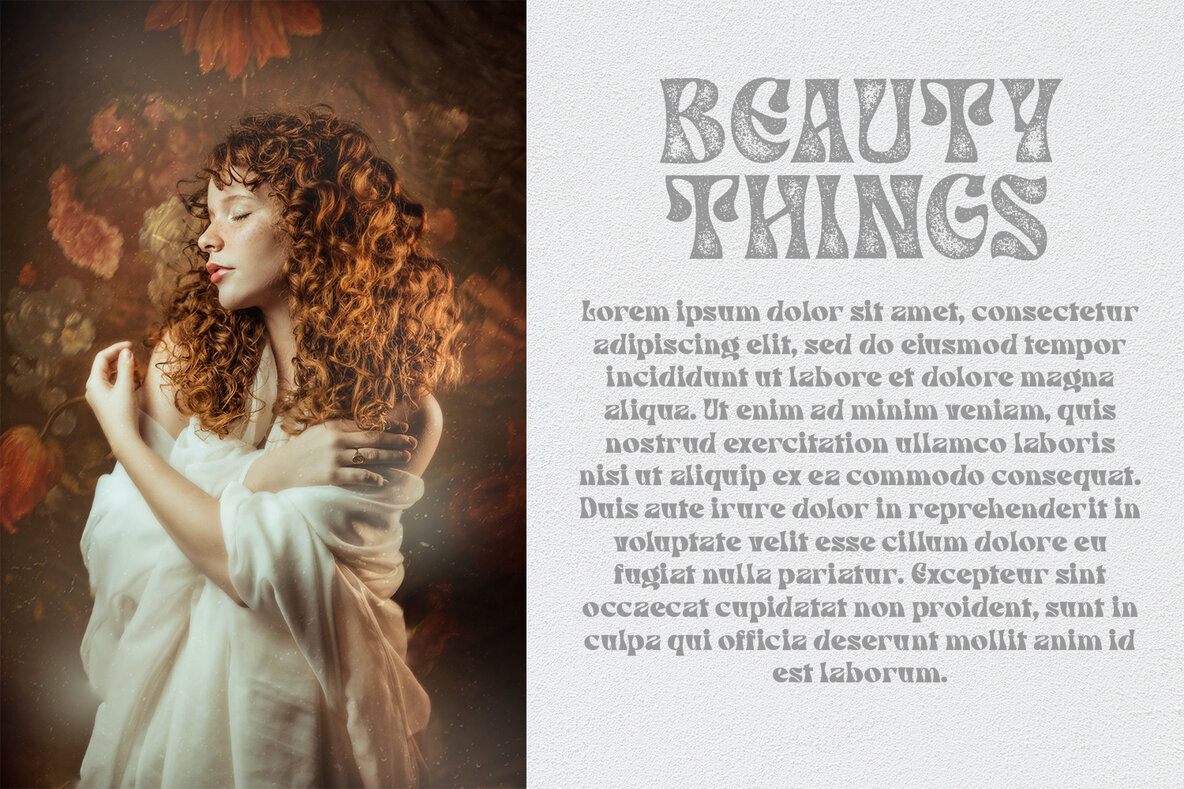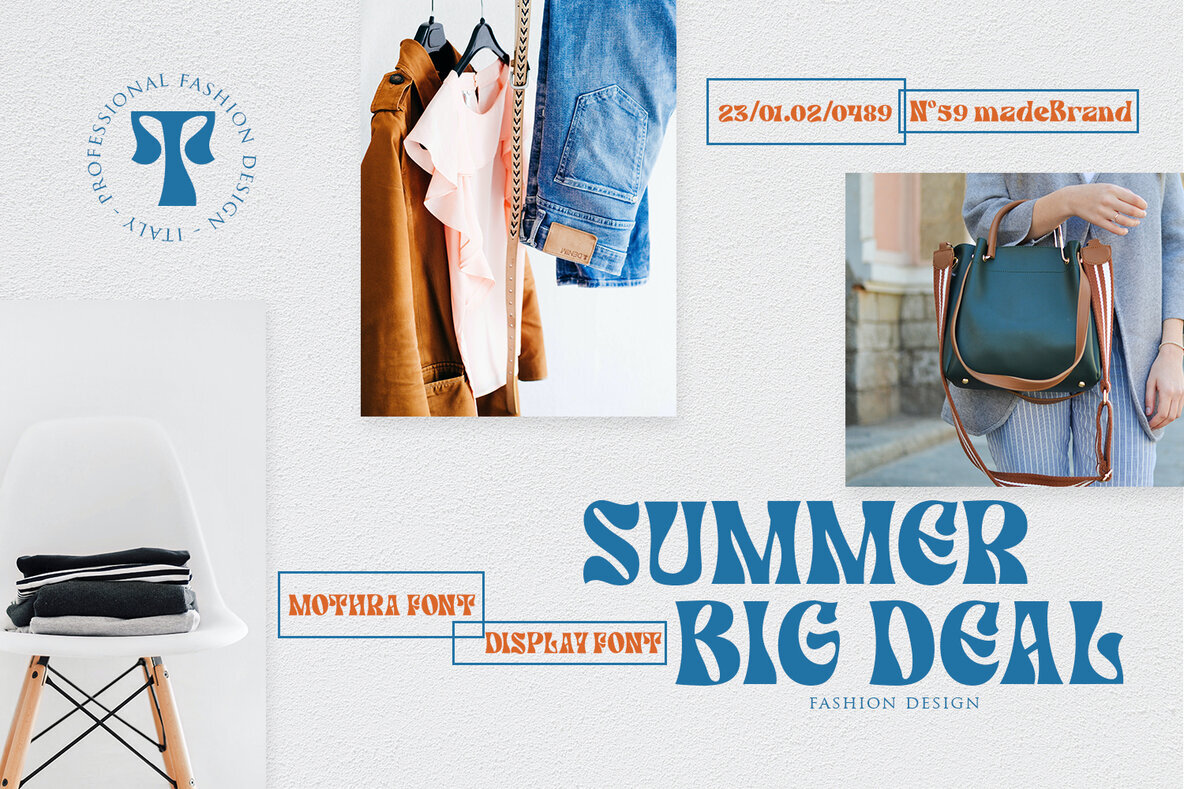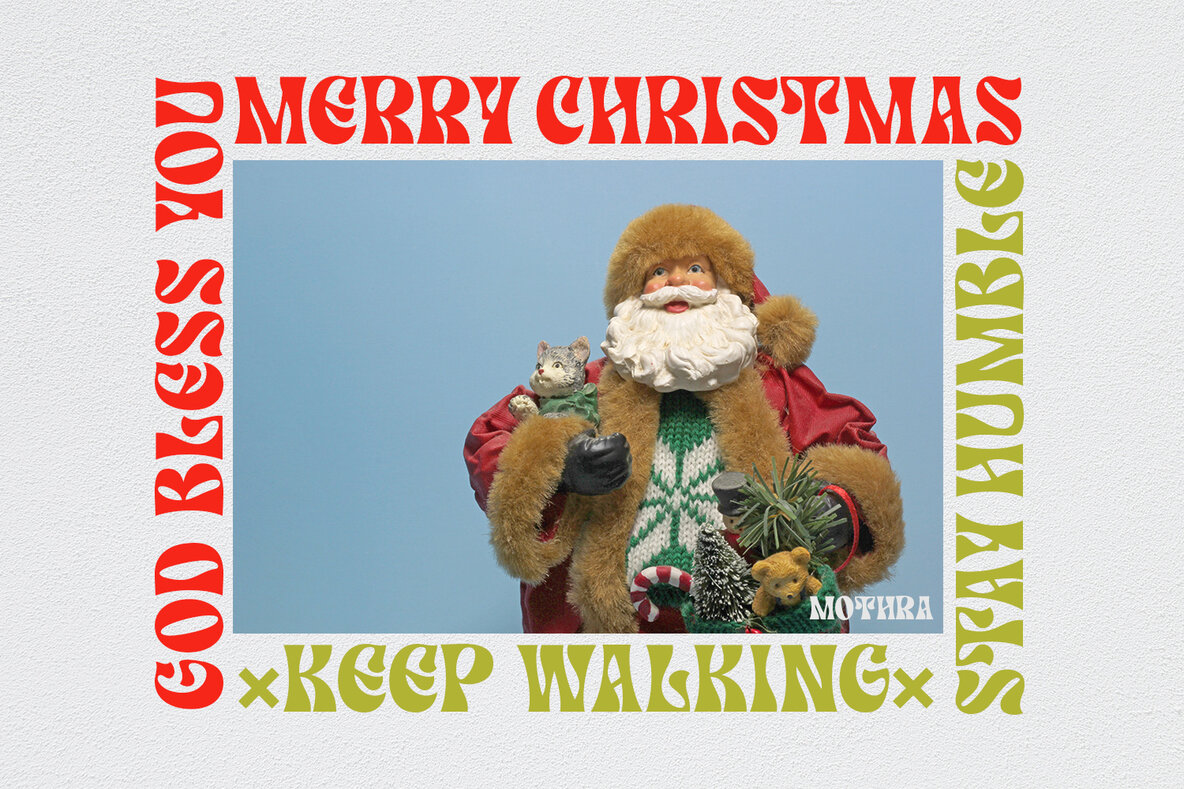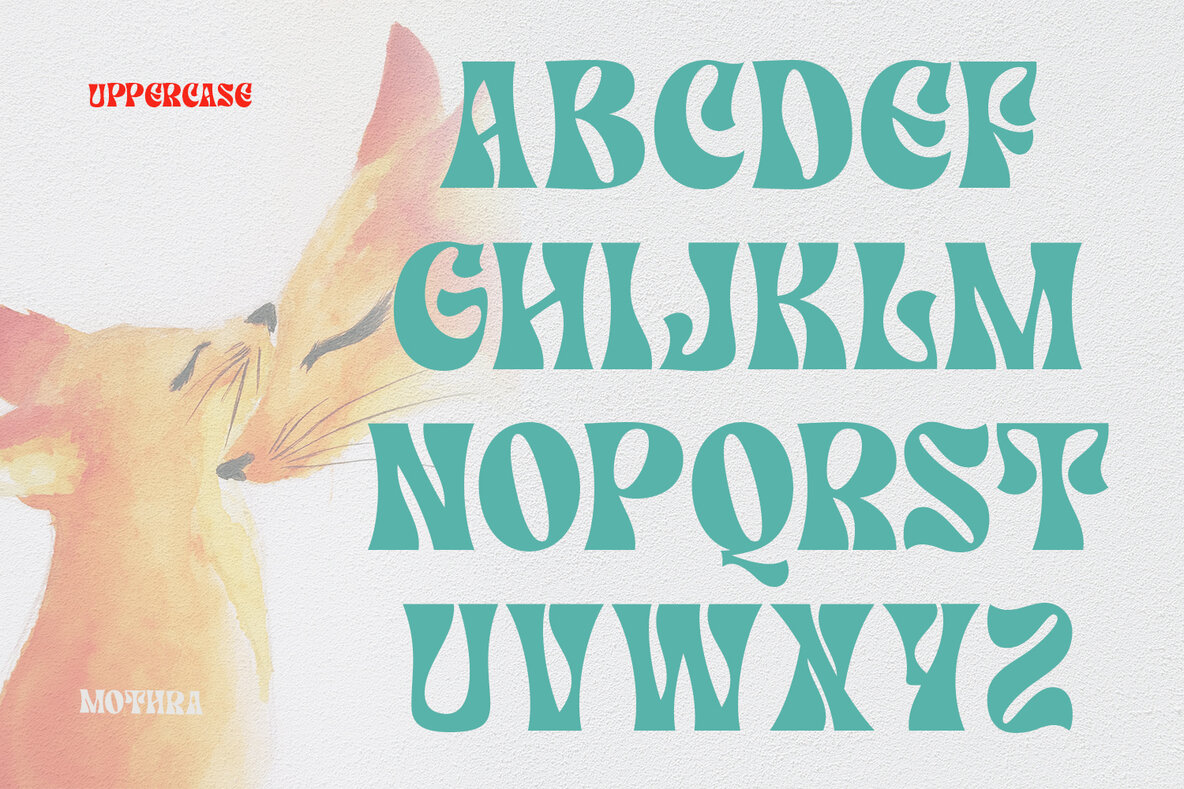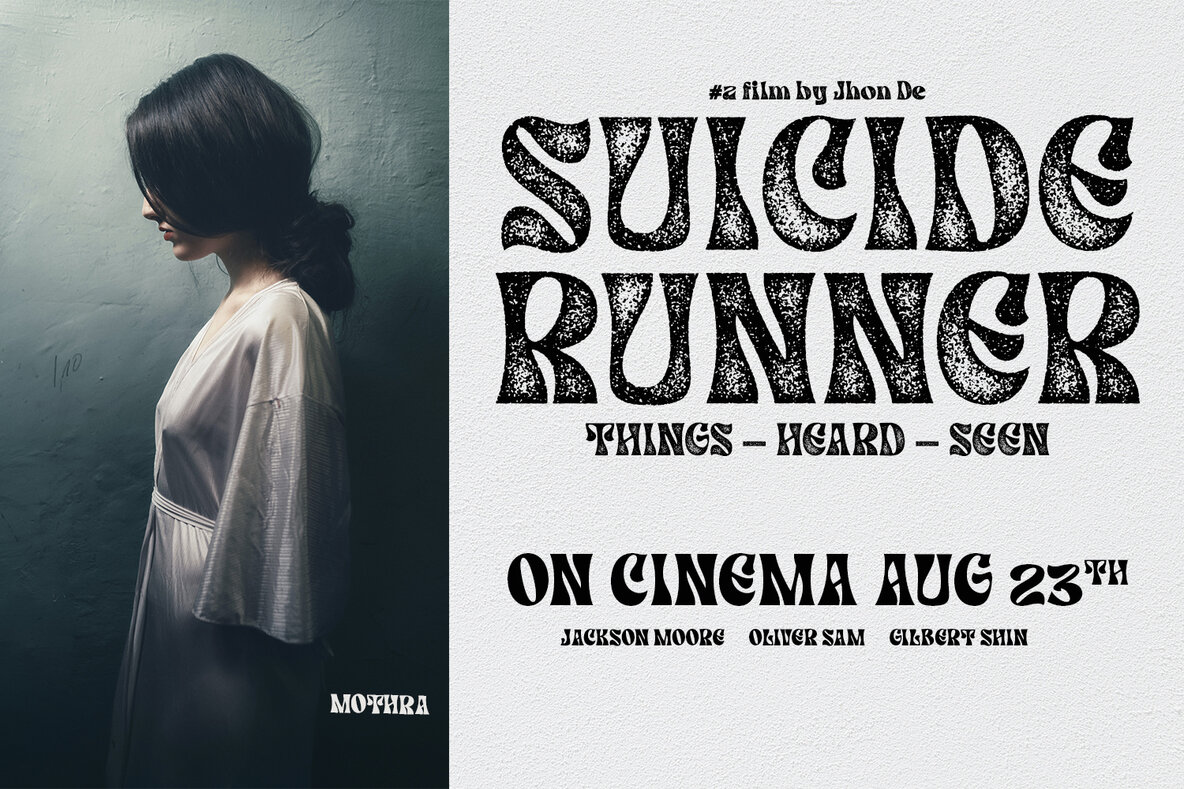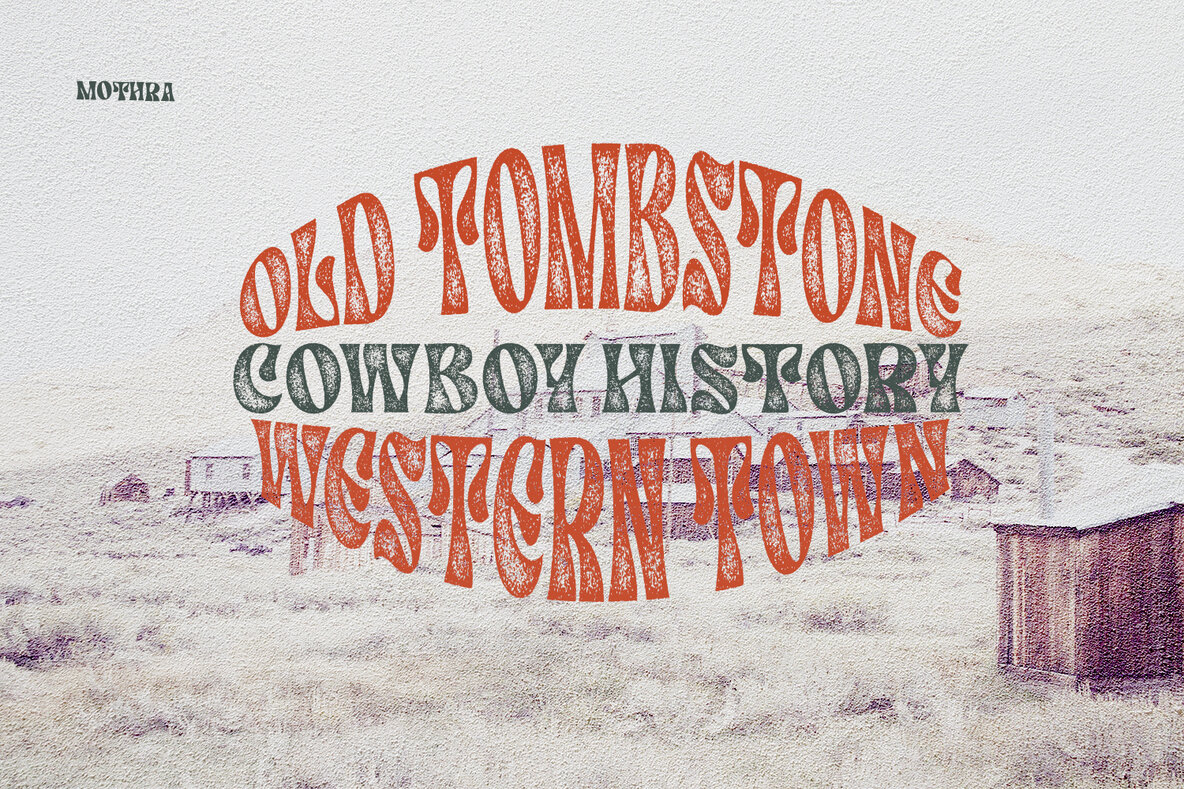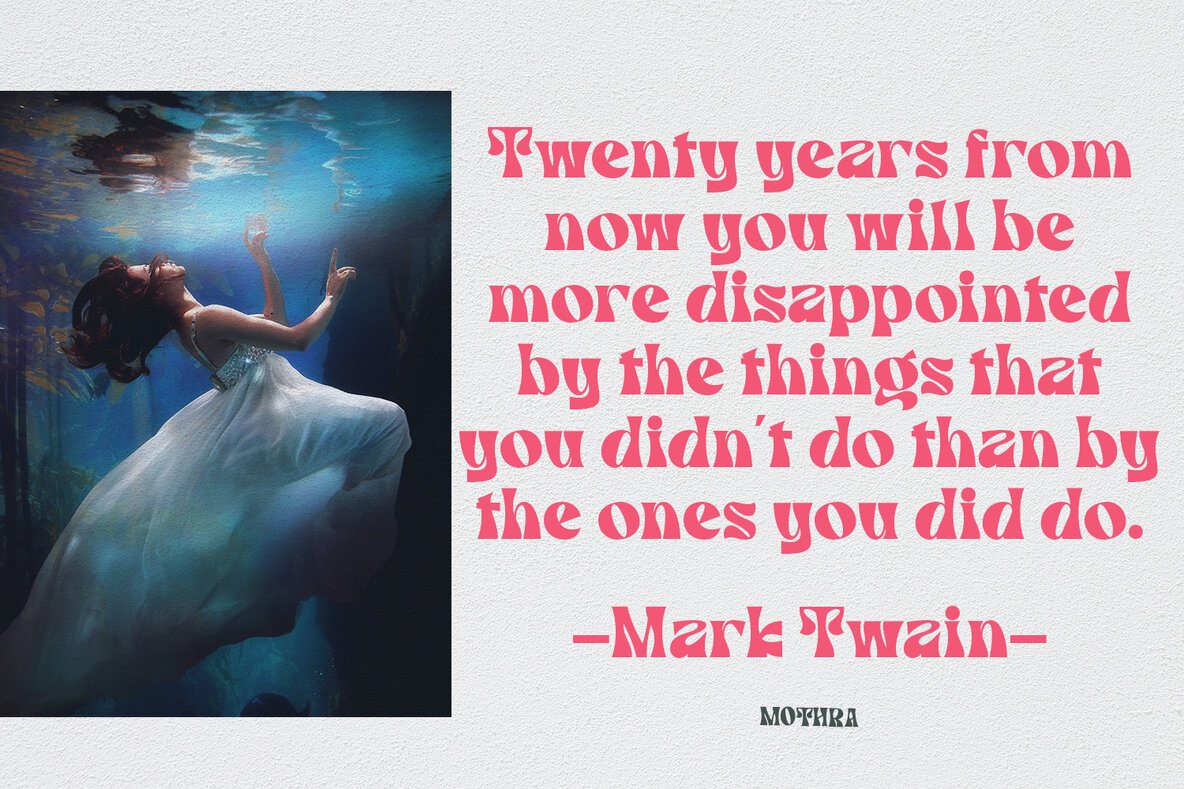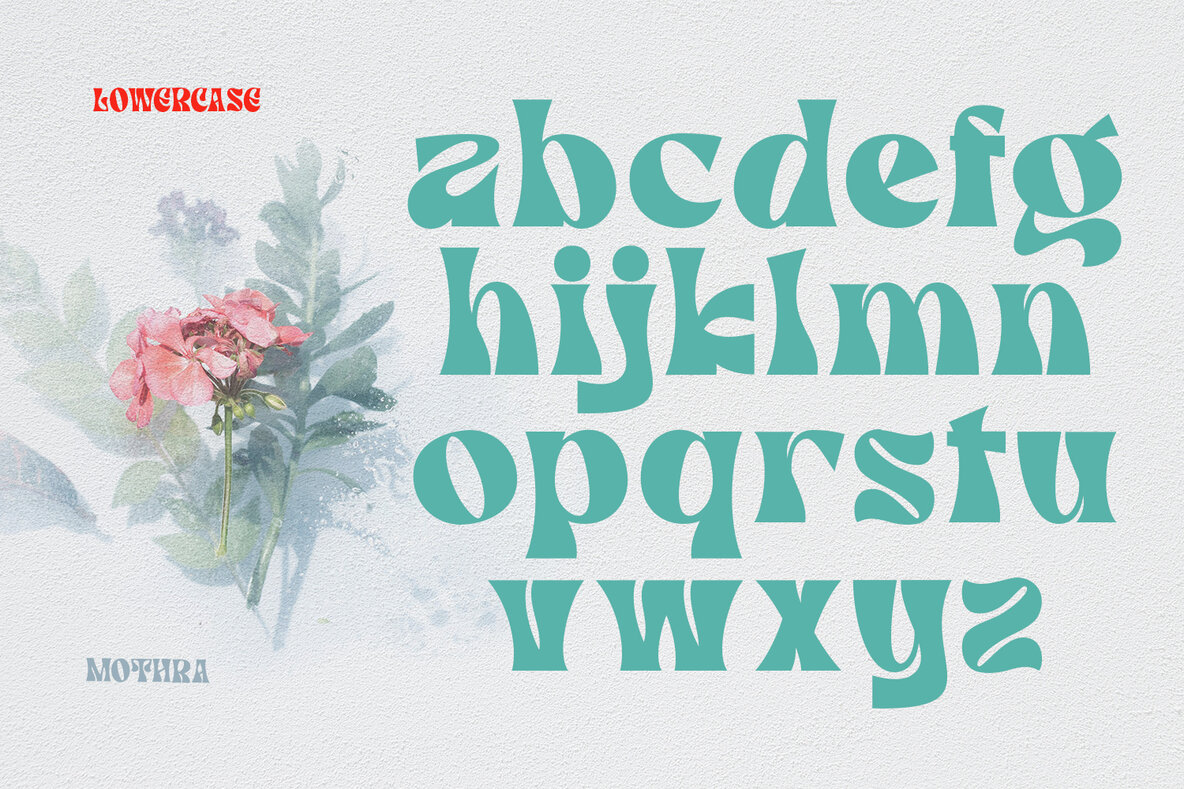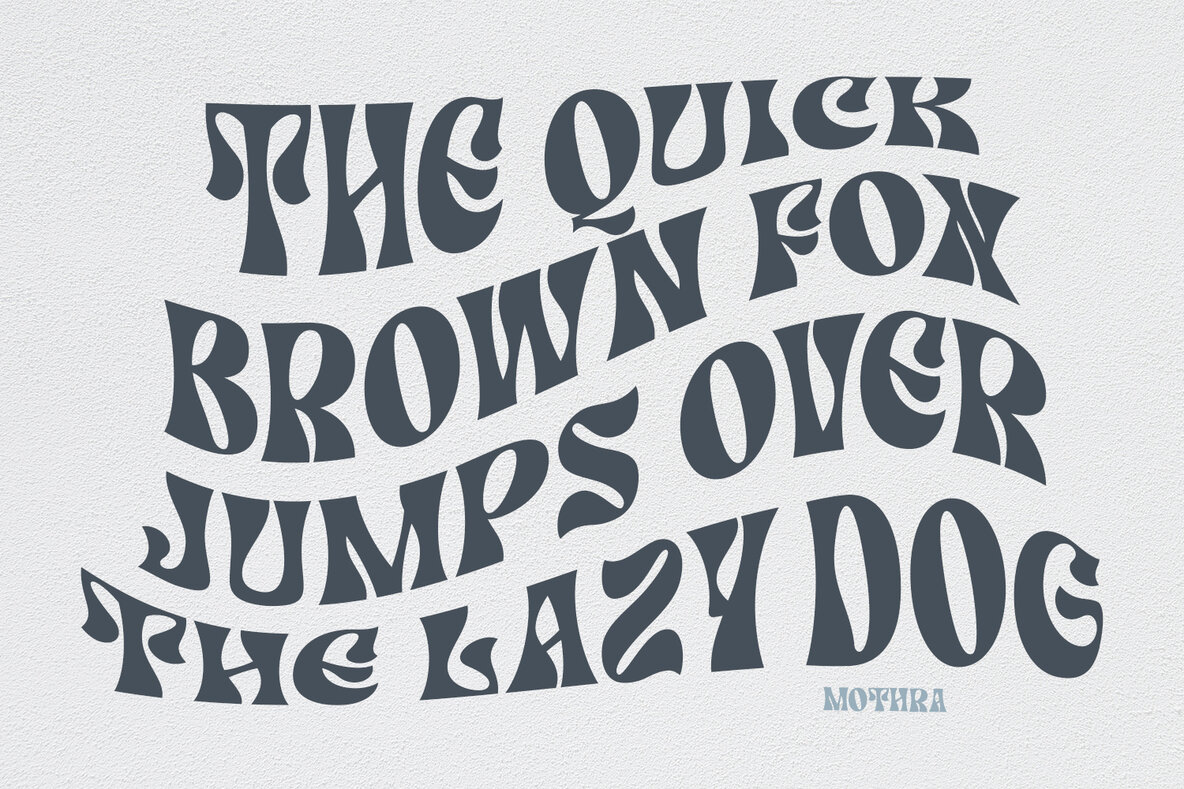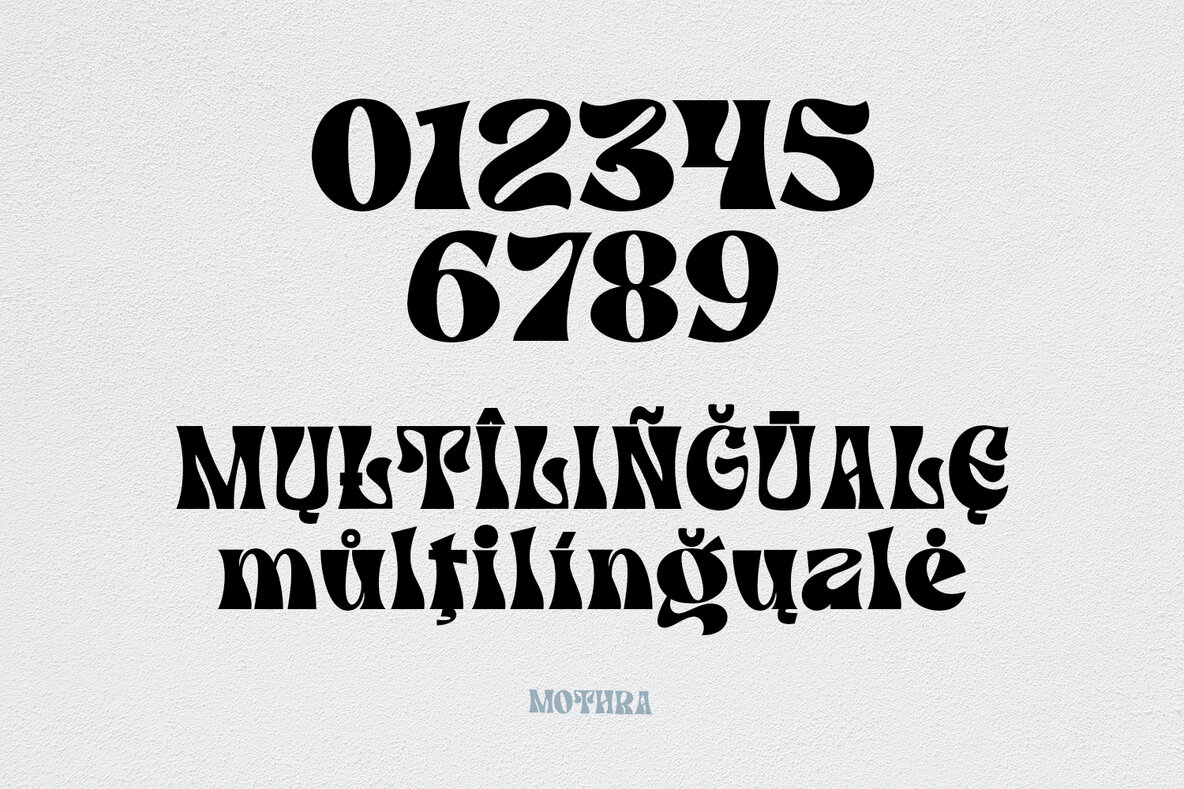
Mothra Font
Mothra is designed to infuse character into any creative endeavor. Whether you are crafting branding elements, designing product packaging, or curating event invitations, this font offers a blend of solid and rough styles. Its versatility extends across mediums, making it suitable for t-shirts, logos, posters, and more.Mothra: Versatile Font for Dynamic Branding